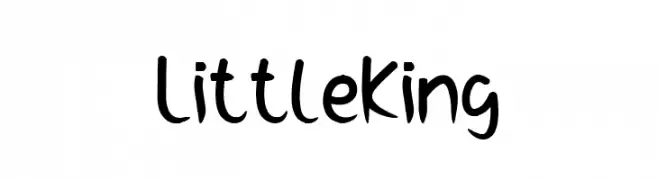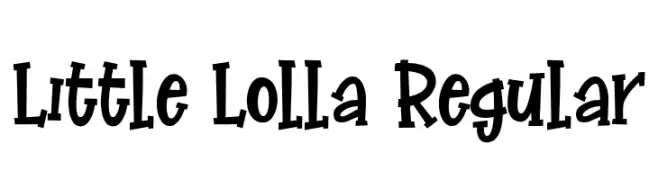
A playful, hand-drawn font with a whimsical and sketchy style.
A dotted line font perfect for educational and children's projects.
A playful, hand-drawn font with a whimsical and friendly style.
A playful, hand-drawn font with rounded, whimsical characters.
A bold, playful font with rounded, hand-drawn letterforms.
Elegant script font with a handwritten feel.
A playful and whimsical font with bold, rounded characters and dynamic flair.
A playful, handwritten font with a whimsical and friendly style.
A playful, hand-drawn font with exaggerated curves and a whimsical style.